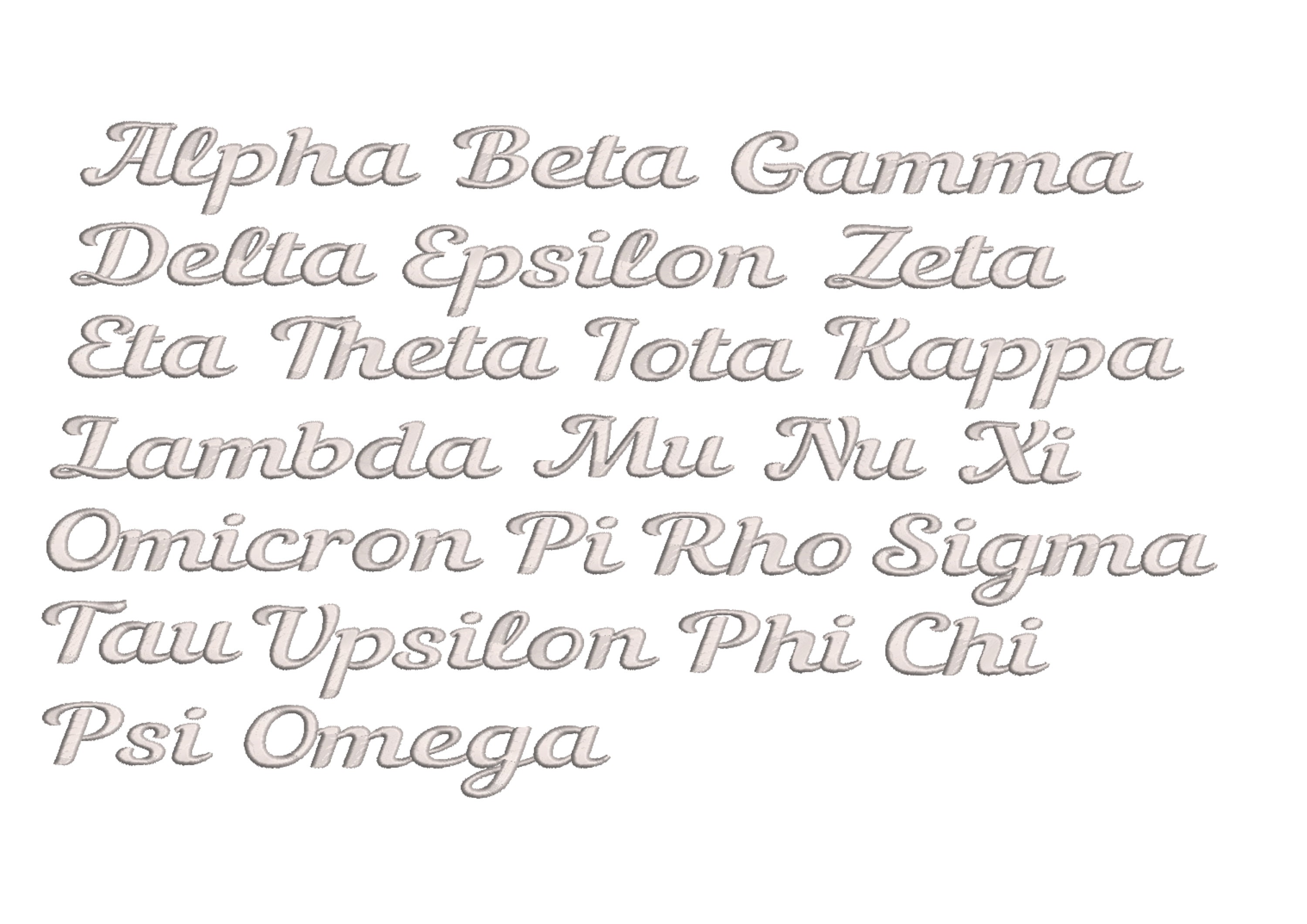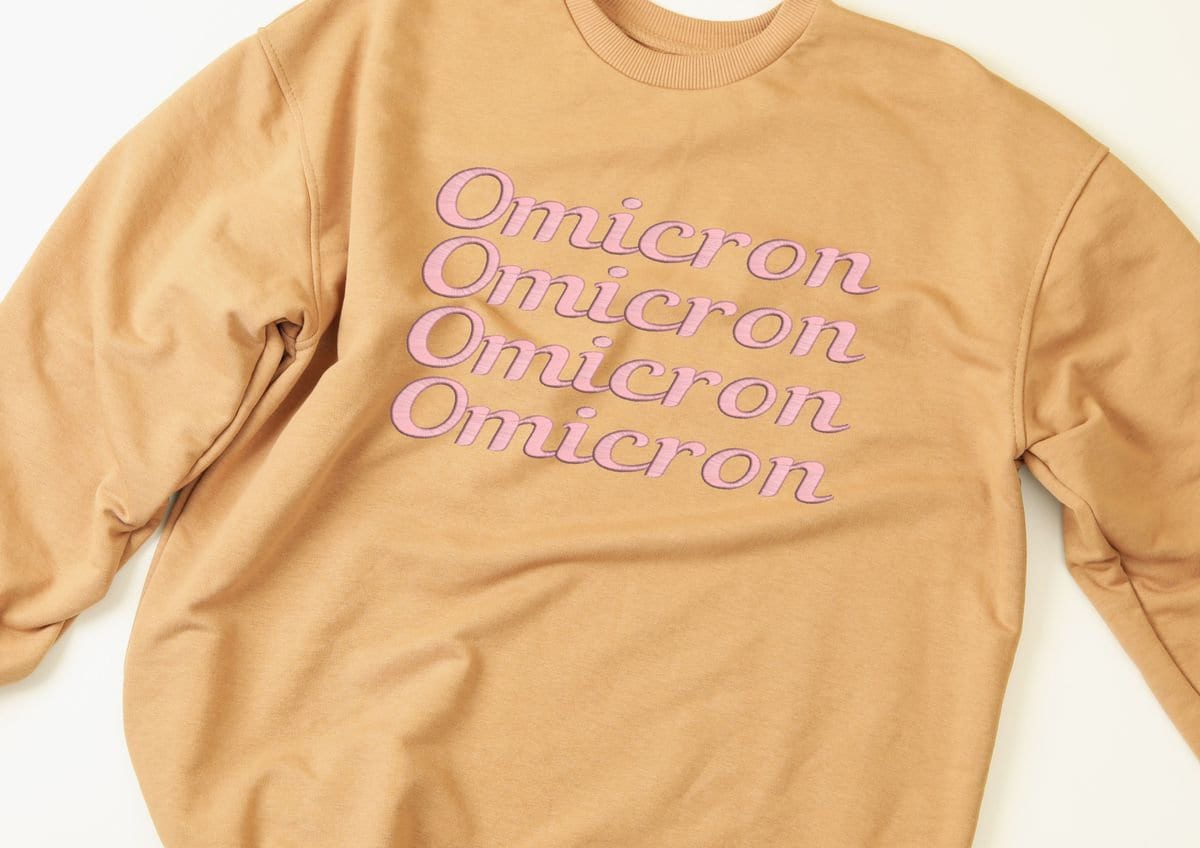
Set of 24 Greek letters written in words preset of sororities, theta alpha omega kappa omicron satin stitch machine embroidery designs
Whole alphabet letters written in words: alpha, beta, gamma, delta, epsilon, zeta, eta, theta, iota, kappa, lambda, mu, nu, xi, omicron, pi1, rho, sigma, tau, upsilon, phi, chi, psi, omega.
0.7 inches in height
1.1 inches in height
1.4 inches in height
2.2 inches in height